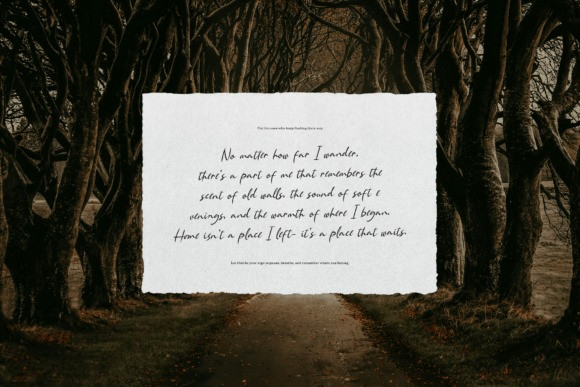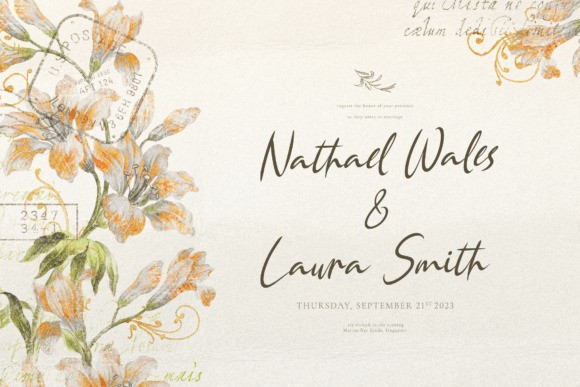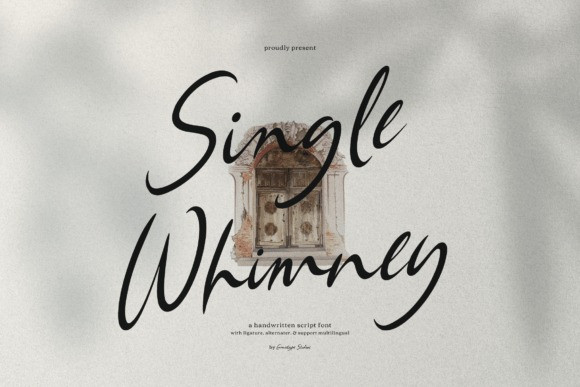
Single Whimney Script Font
Single Whimney Script Font is an emotionally expressive and flowing handwritten script font. Its high-energy brush strokes, natural variations, and quick, authentic movement give it a distinct signature style.
Enhanced with ligatures and alternates for seamless customization, this font is perfect for authentic personal branding, social media influencers, product packaging, high-impact titles, and any design that needs an artistic, bold, and dynamic hand-lettered look.